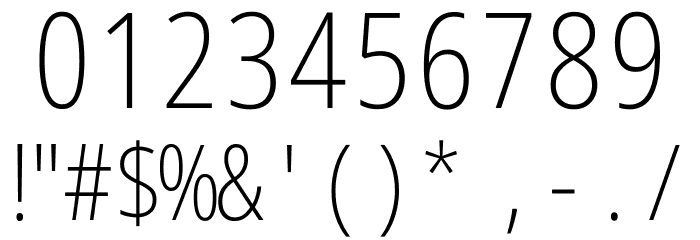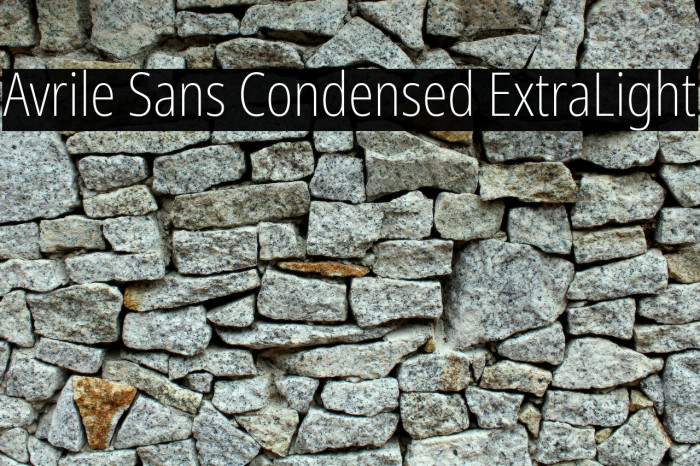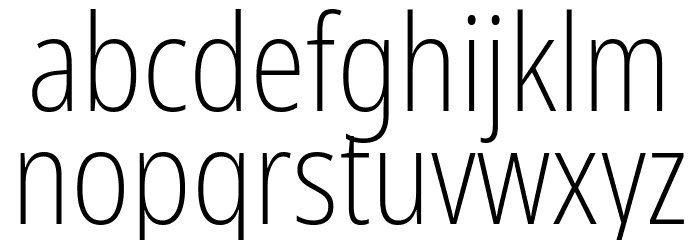
Avrile Sans Condensed ExtraLight Font
Avrile Sans Condensed ExtraLight Description
This typeface features a sleek and modern sans-serif design with a condensed structure, making it ideal for space-saving applications. The characters are crafted with an extra light weight, providing an airy and elegant appearance. The uniform stroke width and minimal contrast contribute to its clean and contemporary look. The font maintains a balanced and harmonious feel, with consistent character heights and proportions. Its simplicity and clarity make it suitable for a variety of design contexts, from digital interfaces to print media.
A modern, condensed sans-serif font with an extra light weight and minimal contrast from Sans Serif fonts.
- Proposed Projects: Ideal for use in digital interfaces, minimalist branding, editorial design, and modern print layouts.